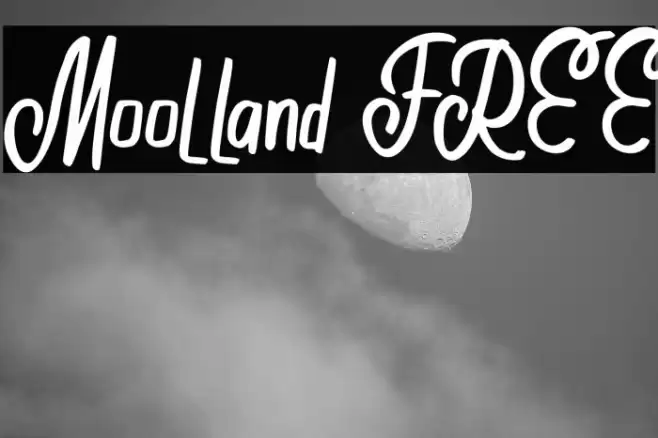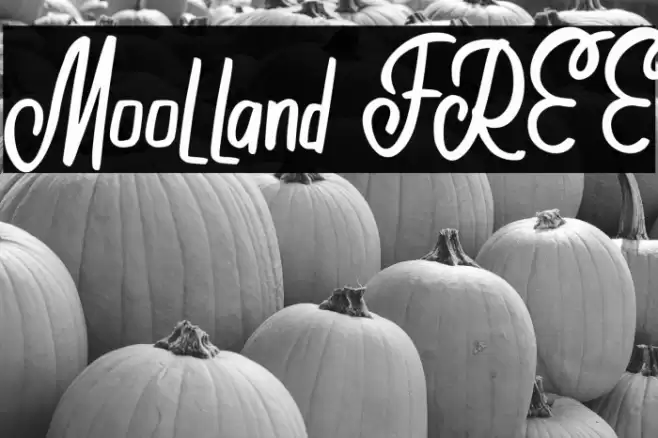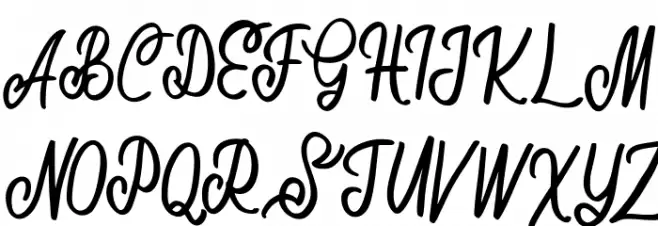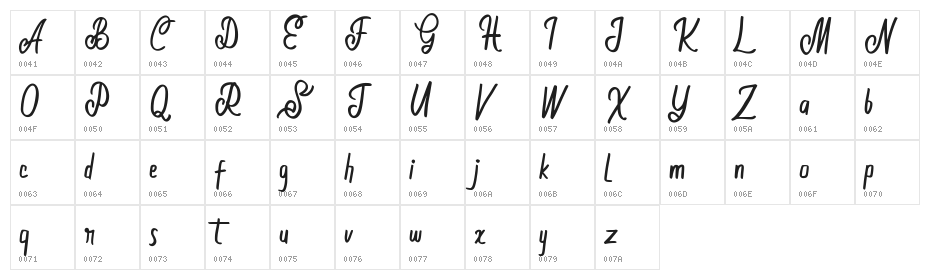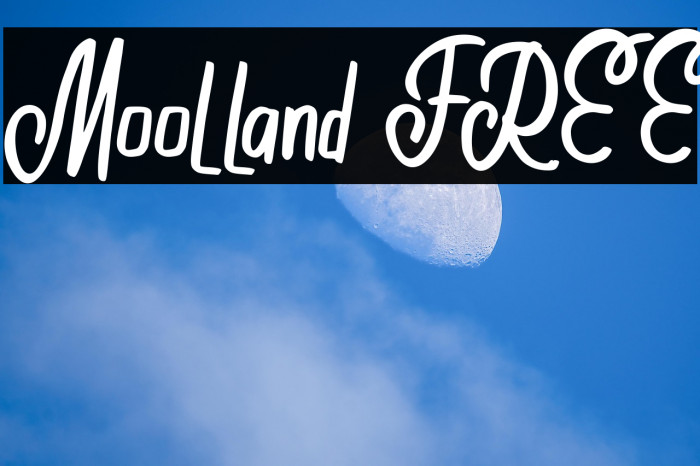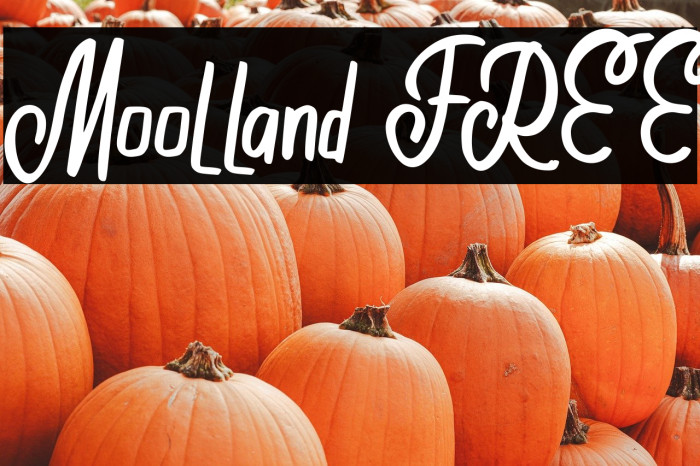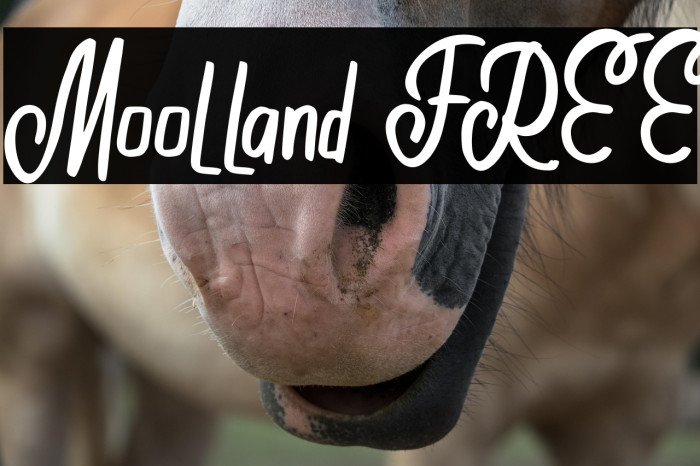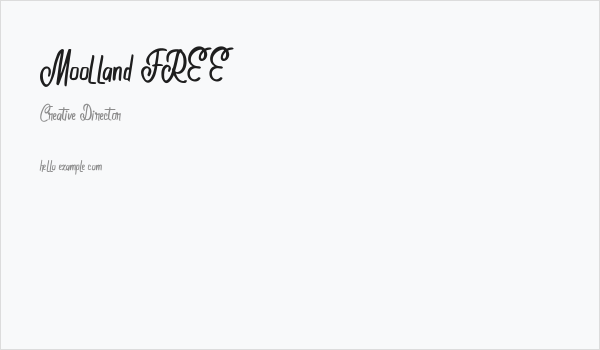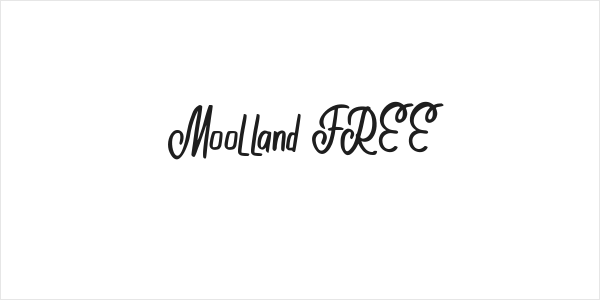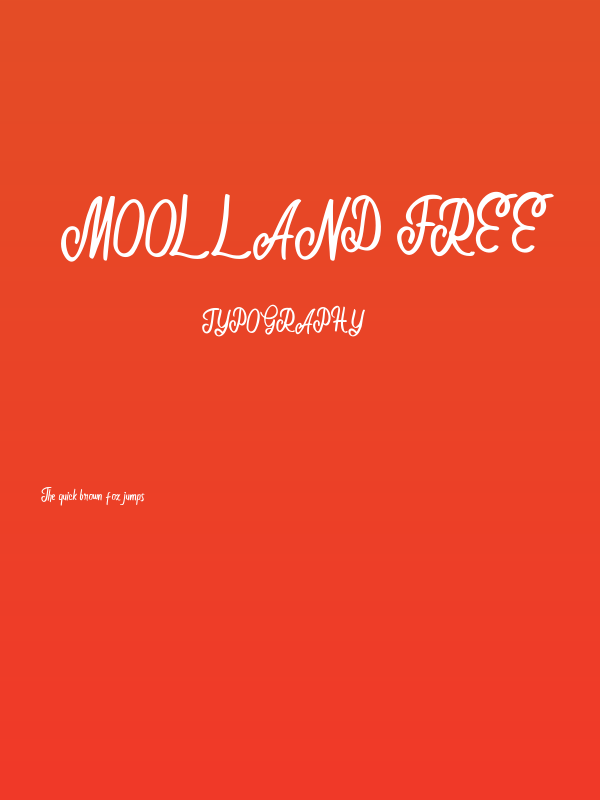
Moolland FREE Font
Moolland FREE Description
This font features a playful and dynamic script style with a handwritten appearance. The uppercase letters are characterized by their flowing, cursive forms, while the lowercase letters maintain a more structured, yet still fluid, look. The strokes are moderately thick, providing a bold presence without overwhelming the design. The font includes a full set of uppercase and lowercase letters, numbers, and a selection of special characters, making it versatile for various applications. The overall design exudes a sense of creativity and elegance, suitable for projects that require a personal touch.
A playful, handwritten script font with bold strokes and elegant curves from Regular fonts.
- Font: Moolland FREE
- Proposed Projects: Ideal for invitations, greeting cards, branding, and creative projects that require a personal, elegant touch.
- Use Case: Logos, Invitations, Greeting cards